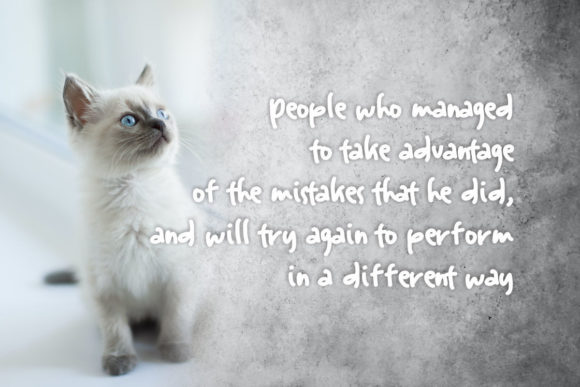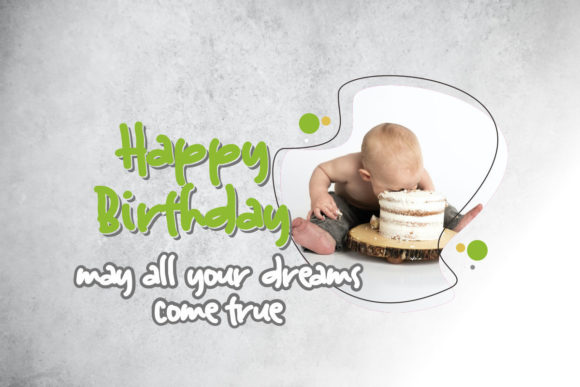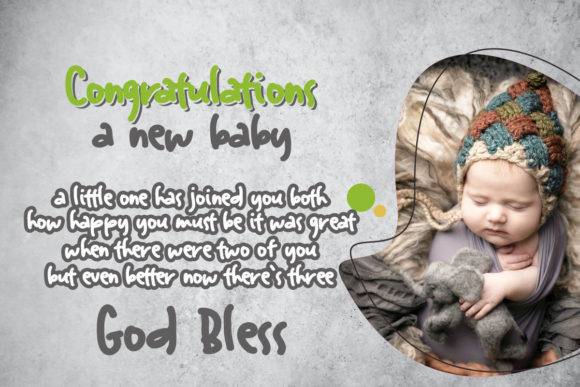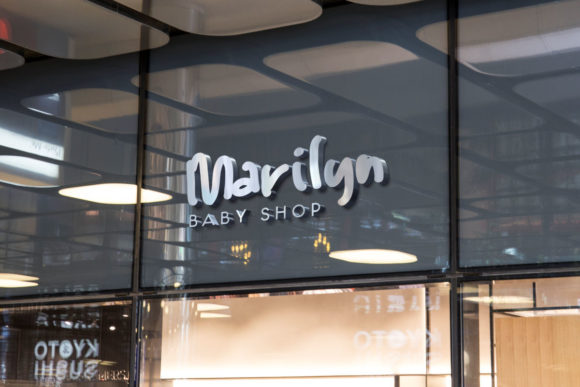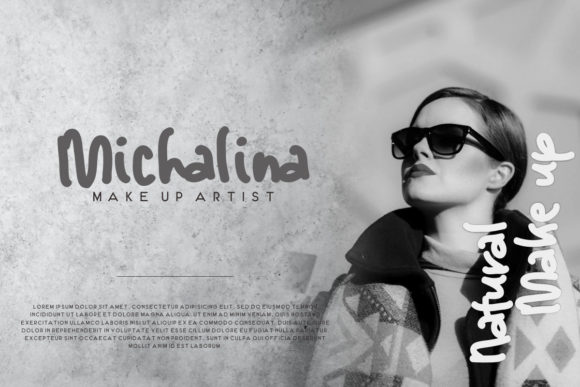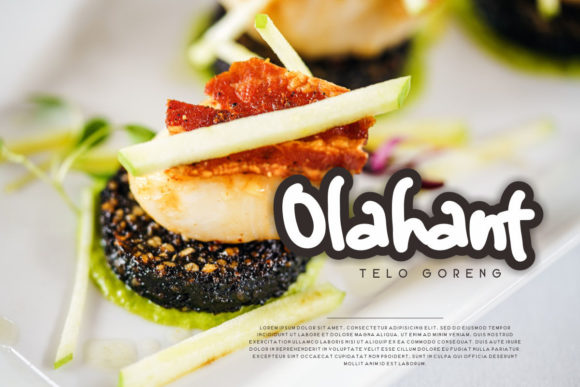
The Joy of Funny Cute Font: Adding a Lively Touch to Your Designs
I’ll never forget the time I was working on a project for a children’s party invitation. I had the design concept all sorted out, but I was struggling to find the perfect font to bring it all together. That’s when I stumbled upon Funny Cute, a delightful handwritten font that instantly added a playful touch to my design. If you’re a designer, crafter, or creative hobbyist looking for a font that exudes a childlike feel, you’re in the right place!
A Personal Review of Funny Cute Font
I’ve had the pleasure of working with Funny Cute font on several projects, and here’s what I think:
• ✨ Smooth and Beautiful: The font has a silky smooth texture that makes it a joy to read and look at.
• ✅ Childlike Feel: Funny Cute has a playful, innocent quality that makes it perfect for designs aimed at kids or those who are young at heart.
• ✅ Lively and Fun: This font is guaranteed to add a dash of fun and energy to your designs!
Of course, no font is perfect, and Funny Cute has a few minor quirks:
• 🤔 Limited Formality: As a handwritten font, Funny Cute may not be the best choice for very formal or professional designs.
• ⚠️ Legibility at Small Sizes: While the font is generally clear, it can become a bit tricky to read at very small sizes.
The Story Behind Funny Cute Font
While the origins of Funny Cute font are shrouded in mystery, it’s easy to imagine a designer creating this font as a labor of love. Perhaps they wanted to bottle up the magic of childhood and put it into a font that would make people smile. Whatever the inspiration, Funny Cute is a true gem that brings joy to designers and readers alike.